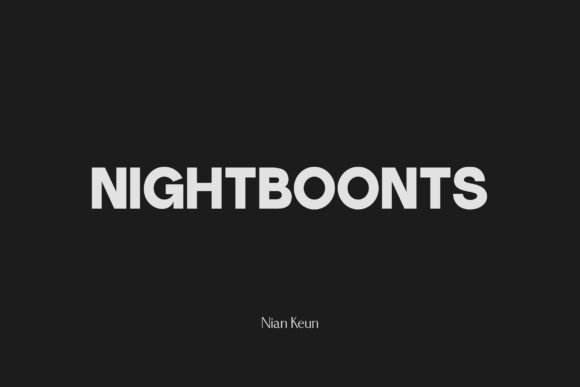
Introducing Nightboonts Font - A Journey into Modern Elegance
In the ever-evolving realm of typography, the Nightboonts Font emerges as a radiant beacon of modernity and elegance. This display font, crafted by the ingenious niankeun, embodies the essence of contemporary design, seamlessly blending clean lines, minimalist aesthetics, and exceptional readability.
At its core, Nightboonts is a sans-serif typeface that exudes simplicity and sophistication. Its sleek design and the absence of serifs lend a sense of clarity and purpose to your digital and print creations. The result is a font that flawlessly complements a wide range of design projects, from sleek logos to captivating posters.
With Nightboonts, readability takes center stage. Its carefully crafted letterforms ensure effortless comprehension, whether you're designing for the digital realm or traditional print media. This font's commitment to clarity and legibility makes it an ideal choice for user interfaces, where readability is paramount.
But Nightboonts is more than just a legible font; it's an expression of style and personality. Its clean, sharp lines convey a sense of professionalism and sophistication, while its minimalist design adds a touch of simplicity and clarity to your projects. This harmonious fusion of style and functionality makes Nightboonts the perfect choice for designers seeking a font that combines aesthetics and performance.
For those seeking a font that embodies the essence of modern design, Nightboonts emerges as a radiant choice. Its timeless beauty and exceptional readability make it an ideal companion for contemporary design projects that demand style and substance. Experience the magic of Nightboonts and embark on a journey into modern elegance.